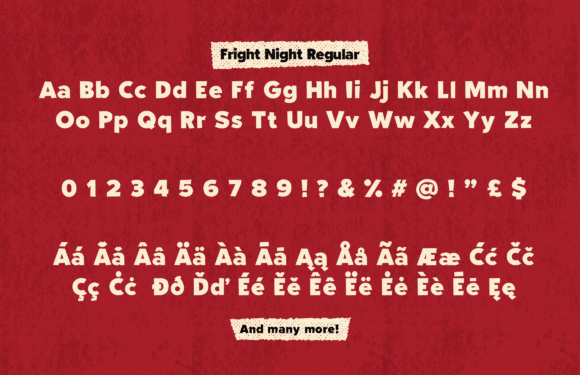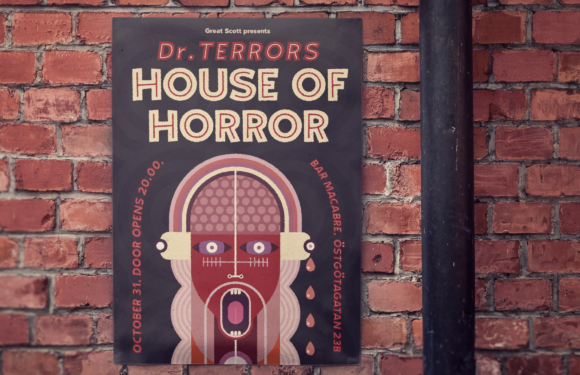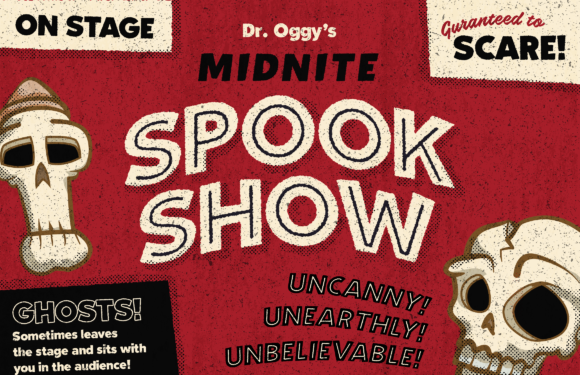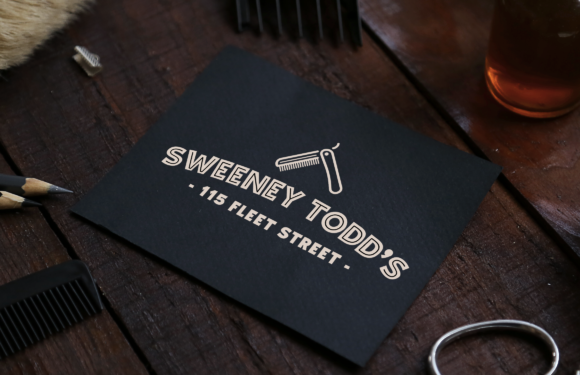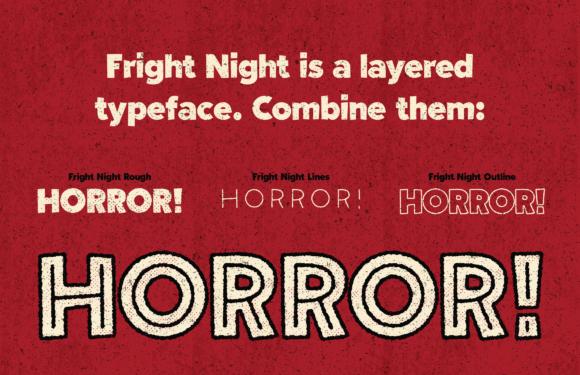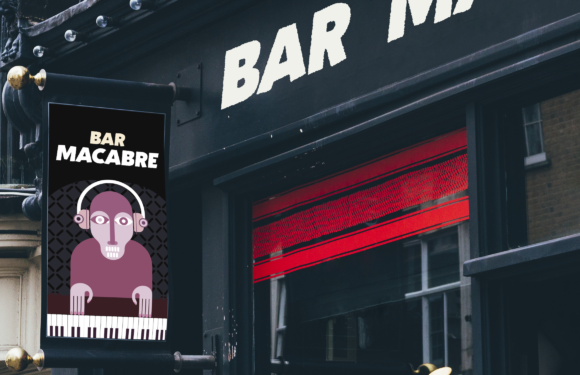
Fright Night! Font: Adding a Touch of Horror and Style to Your Designs
Are you tired of using the same old fonts in your designs? Do you want to add a touch of horror and style to your projects? Look no further than the Fright Night font! With its inspiration from vintage horror posters and bold geometric typography, Fright Night is the perfect font for designers and crafters looking to add a unique and thrilling element to their work.
The Inspiration Behind Fright Night
Fright Night font takes its cue from the classic horror posters of the past, with a modern twist. The font’s design is inspired by the bold, geometric typography often seen in vintage horror posters, with a dash of diacritics for added flair. The result is a font that is both spooky and stylish, perfect for designers who want to create eye-catching and memorable designs.
What Makes Fright Night Font So Special?
So, what sets Fright Night font apart from other fonts out there? Here are just a few features that make it a standout:
- Unique and bold design: Fright Night font features a bold, geometric design that is sure to grab attention.
- Inspired by vintage horror posters: The font’s inspiration from classic horror posters gives it a unique and nostalgic feel.
- Diacritics for added flair: Fright Night font includes a range of diacritics, allowing you to add extra style and interest to your designs.
- Perfect for horror-themed designs: Whether you’re creating a logo, poster, or social media graphic, Fright Night font is perfect for horror-themed designs.
How to Use Fright Night Font in Your Designs
- Pair with bold colors: Fright Night font looks amazing paired with bold, bright colors. Try pairing it with a bold red or orange for a truly eye-catching design.
- Use in horror-themed designs: Fright Night font is perfect for horror-themed designs, such as movie posters, Halloween graphics, and more.
- Experiment with different sizes: Fright Night font looks great in a range of sizes, from small and subtle to large and bold. Experiment with different sizes to find the one that works best for your design.
- Add some texture: Adding texture to your design can help to give it an extra layer of depth and interest. Try adding a texture overlay or using a textured background to really make your design pop.
Fright Night Font for Crafters and Designers
Fright Night font isn’t just for designers – it’s also perfect for crafters and DIY enthusiasts. Here are a few ways you can use Fright Night font in your crafting projects:
- Iron-on designs: Use Fright Night font to create custom iron-on designs for t-shirts, hoodies, and more.
- Paper crafting: Fright Night font is perfect for paper crafting projects, such as card making, scrapbooking, and more.
- Sign making: Use Fright Night font to create eye-catching signs for your home or business.
In conclusion, Fright Night font is a unique and exciting addition to any designer’s or crafter’s toolkit. With its bold, geometric design and inspiration from vintage horror posters, Fright Night font is perfect for adding a touch of horror and style to your designs. So why not give it a try and see the thrills, chills, and style it can add to your projects?